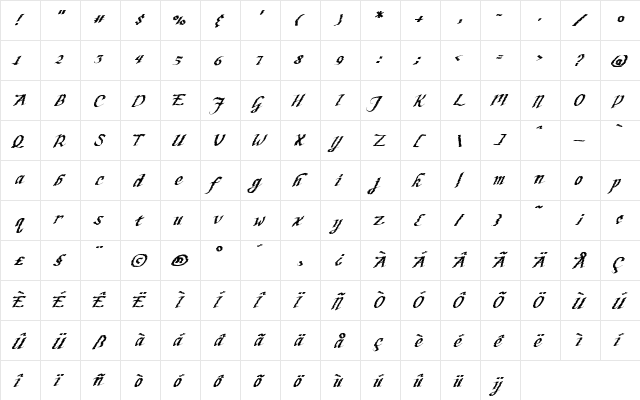
AppleSeed Medium
Design Context for AppleSeed Typeface
AppleSeed is a composed and adaptable typeface that performs quietly and consistently across a wide range of design contexts.